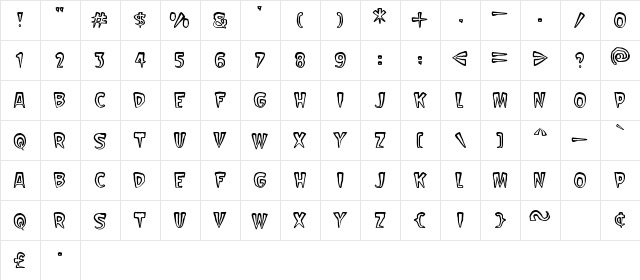
Scarify Regular
| Designer | Joseph Dawson |
Design Context for Scarify Typeface
Scarify is a composed and adaptable typeface that performs quietly and consistently across a wide range of design contexts.